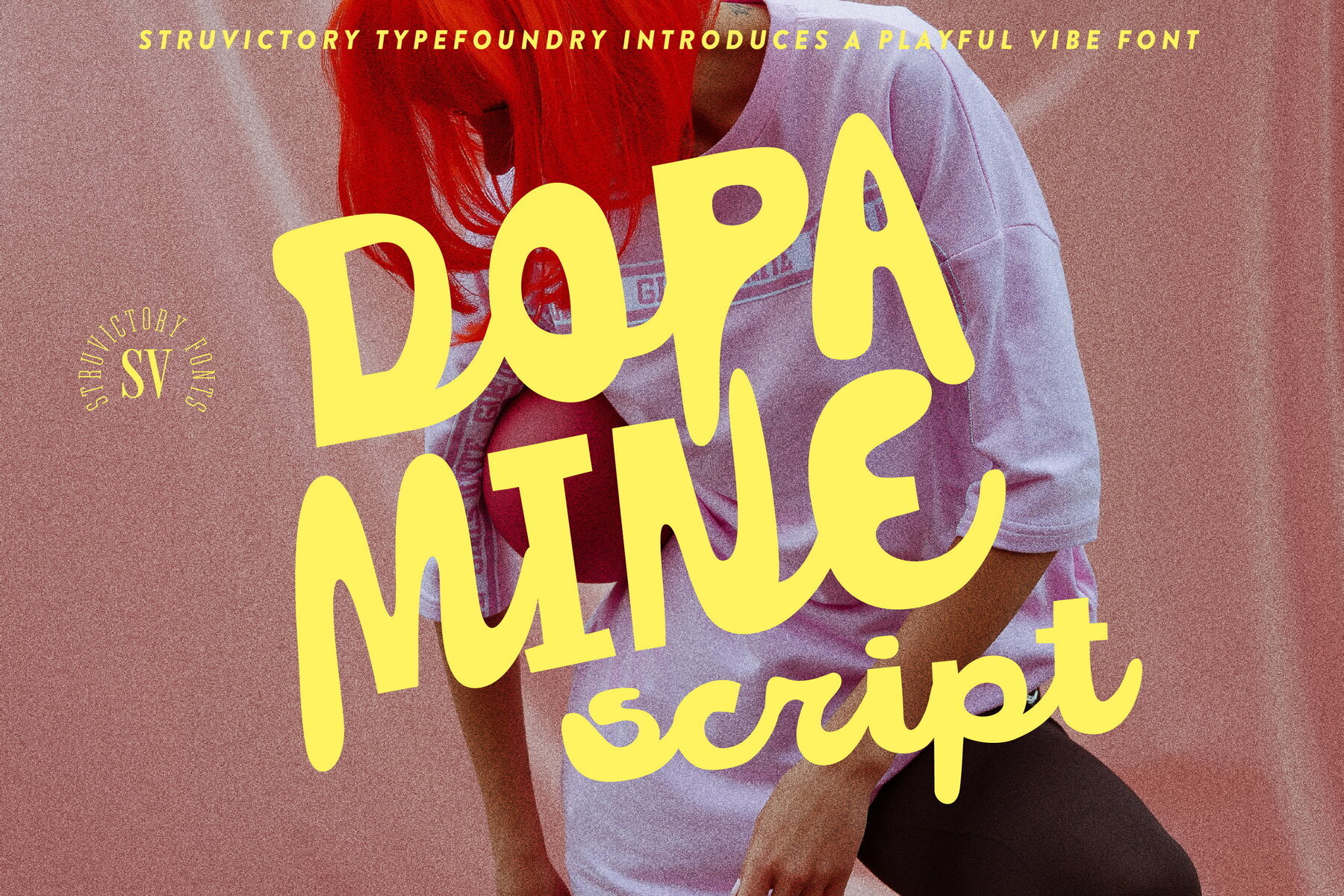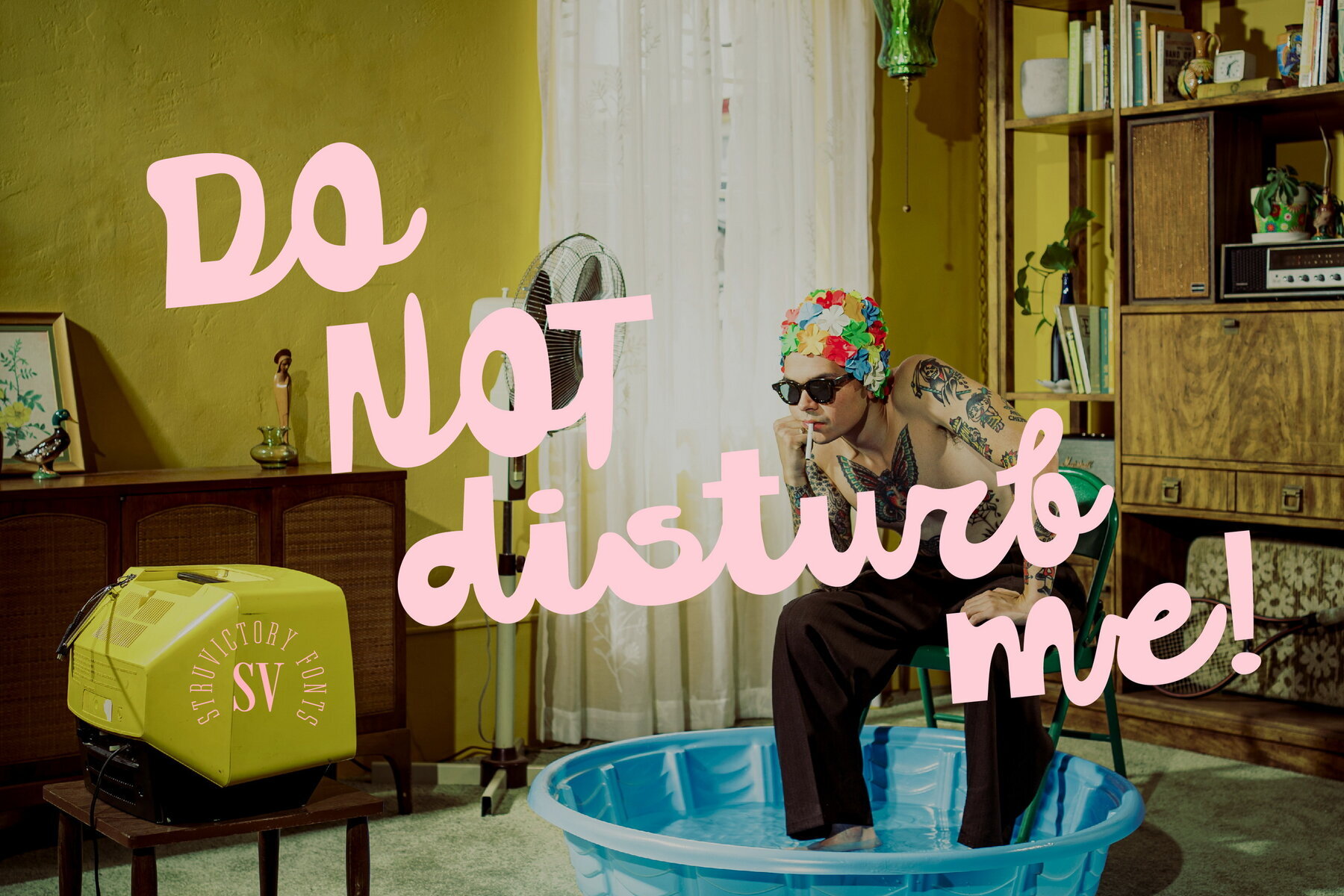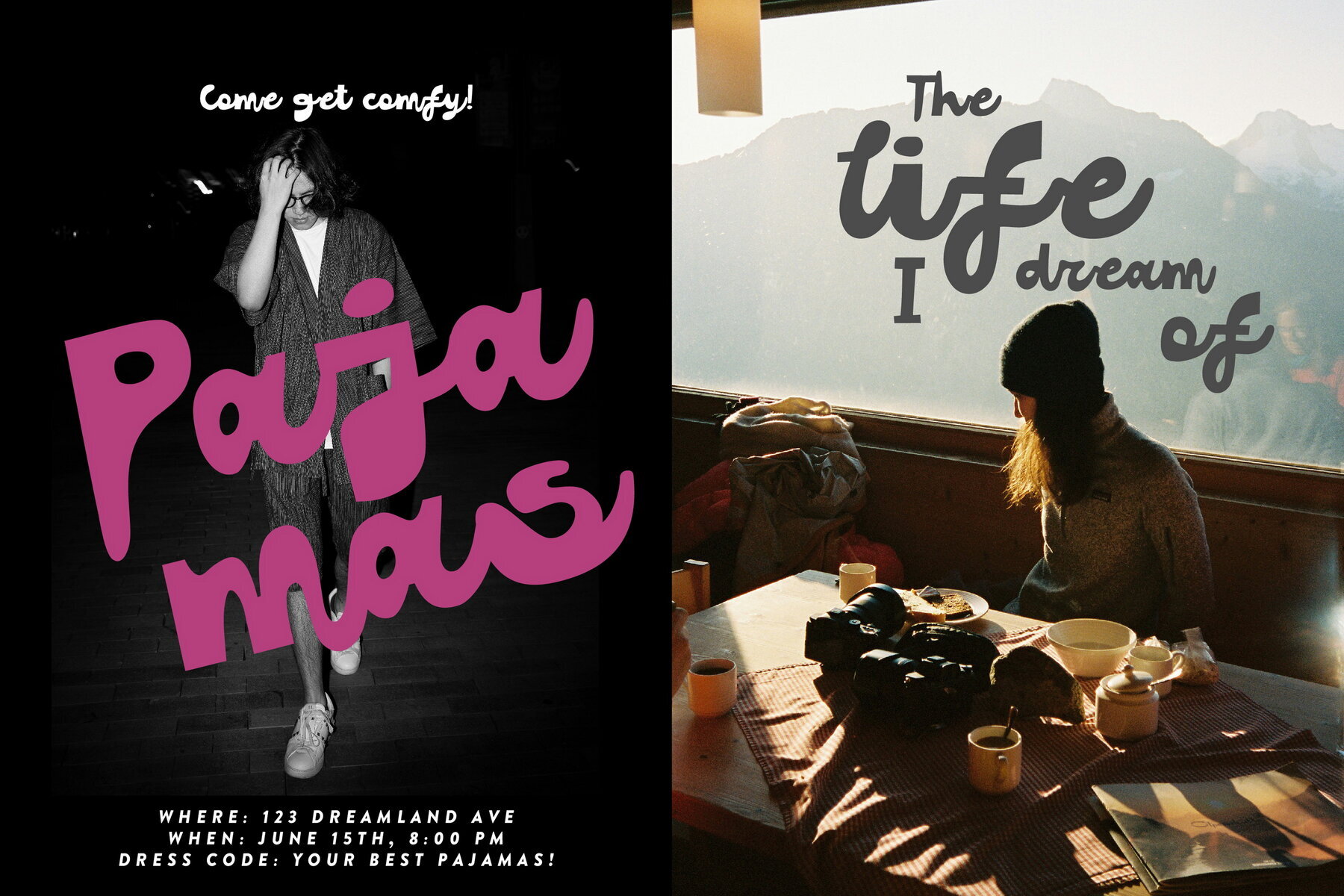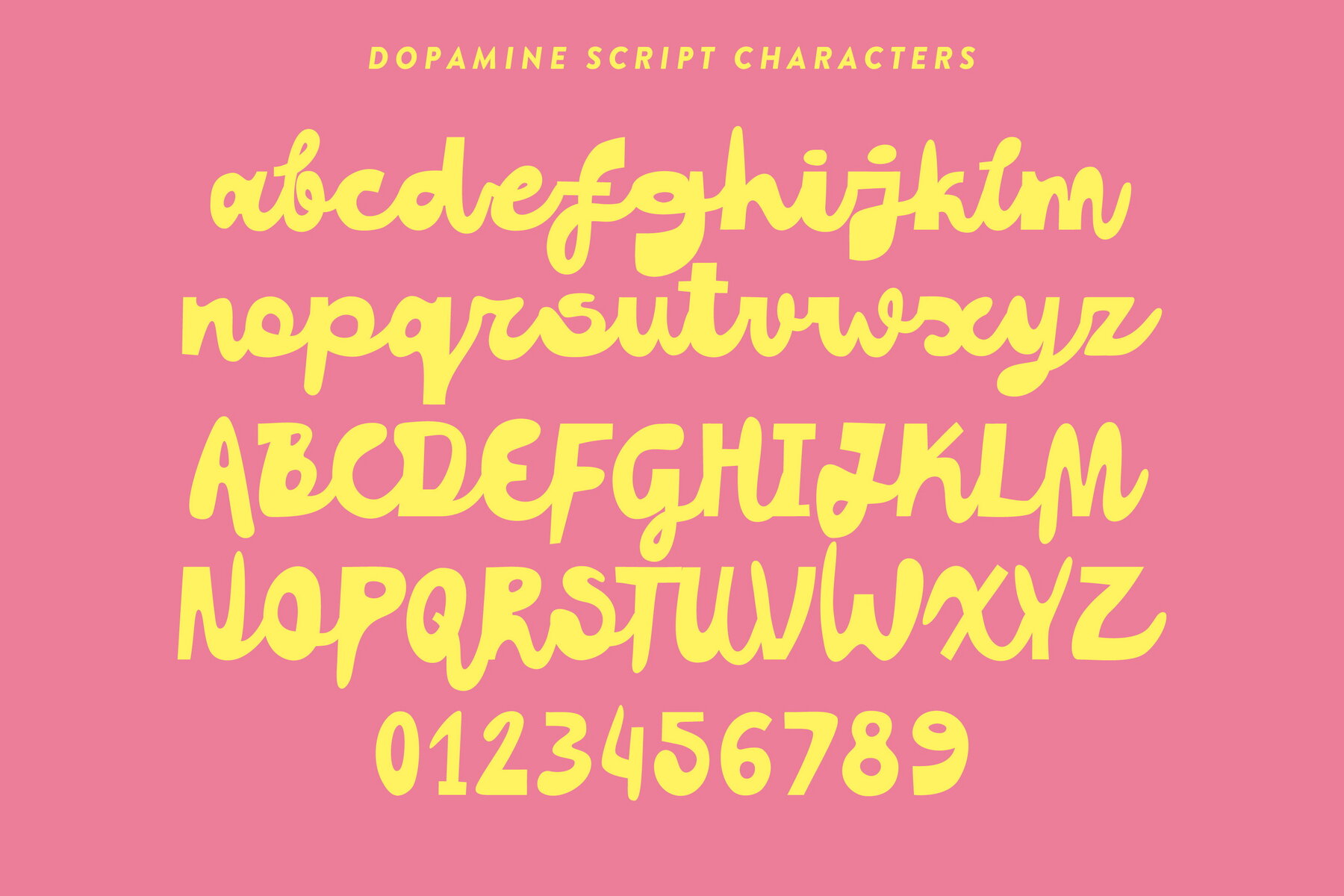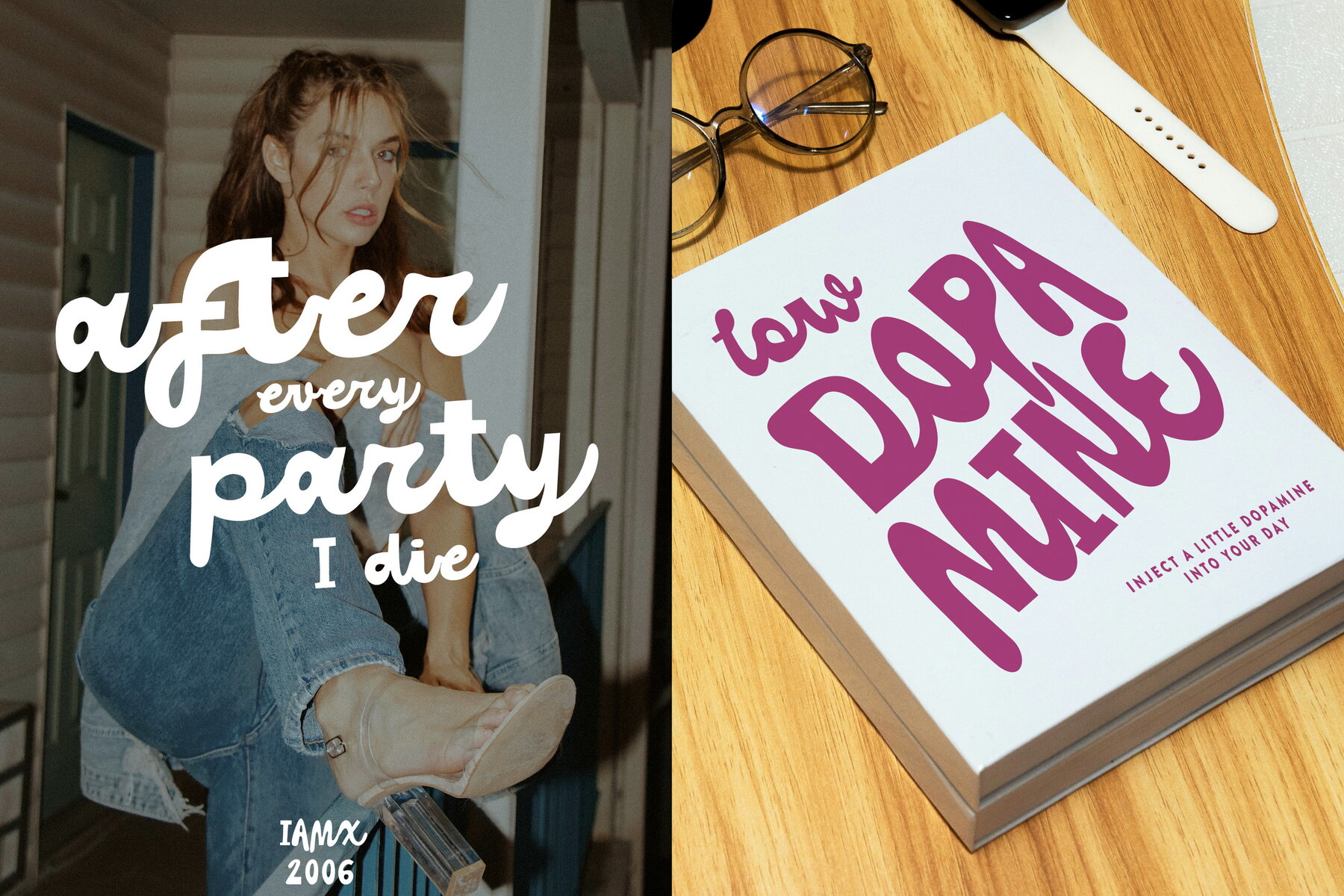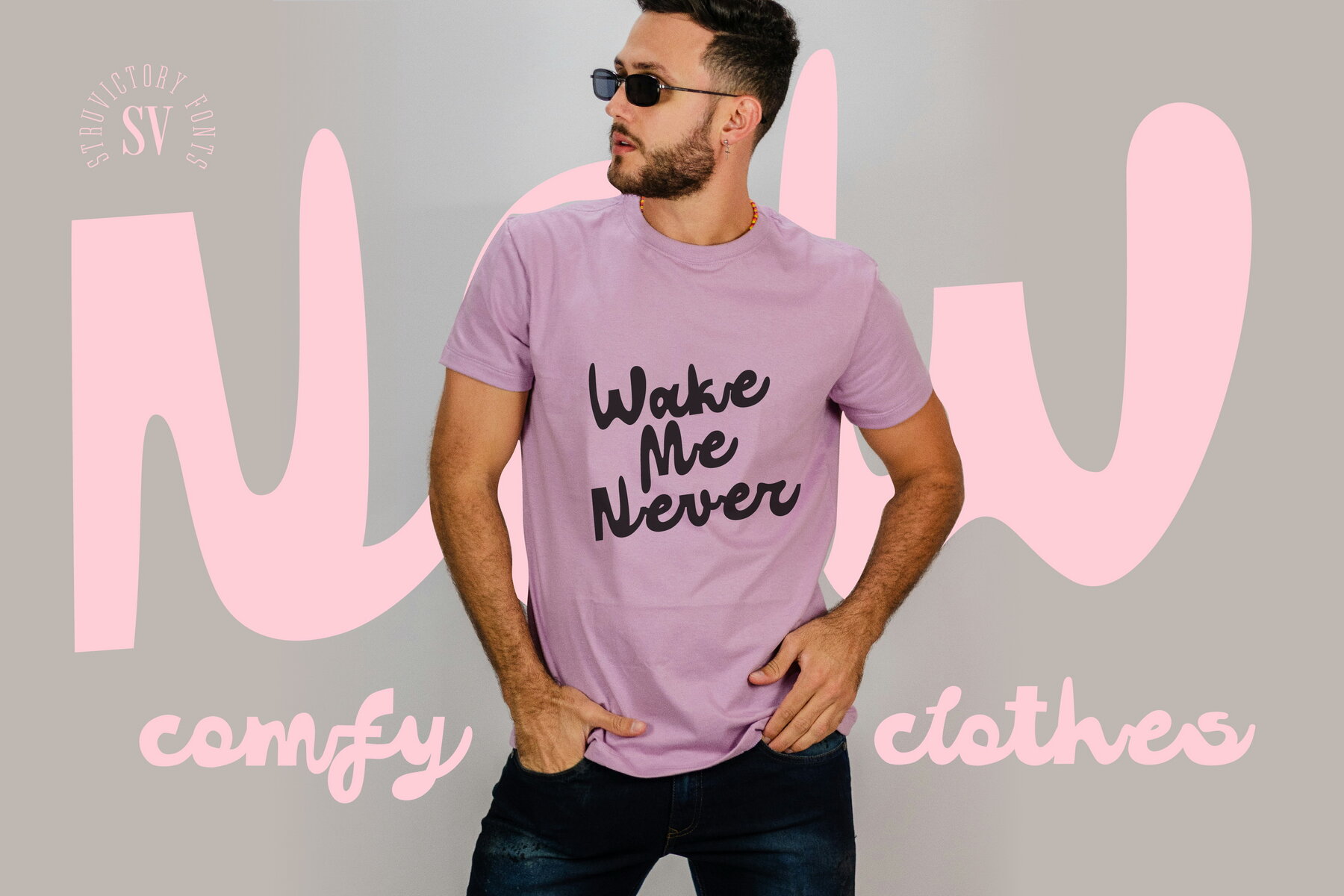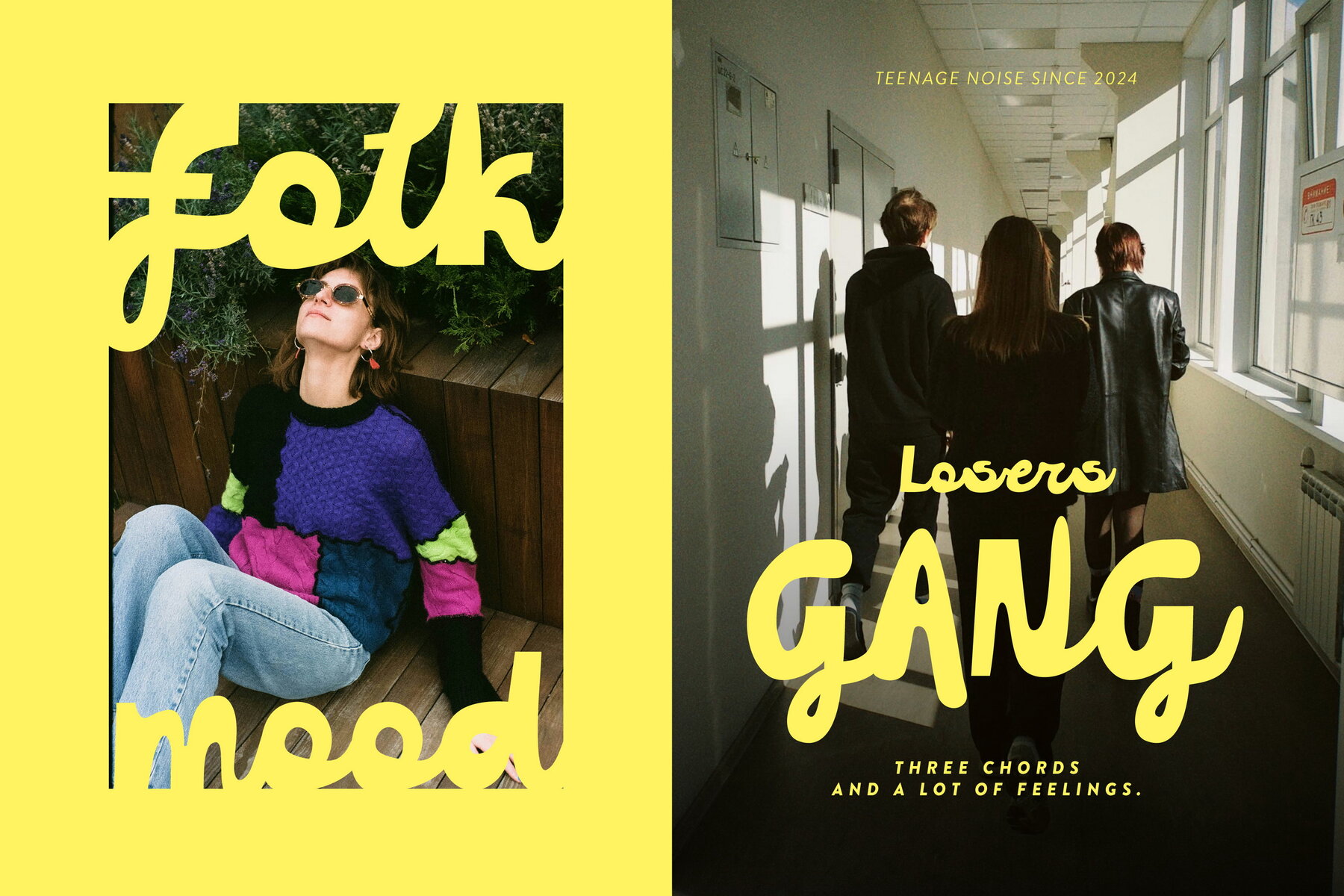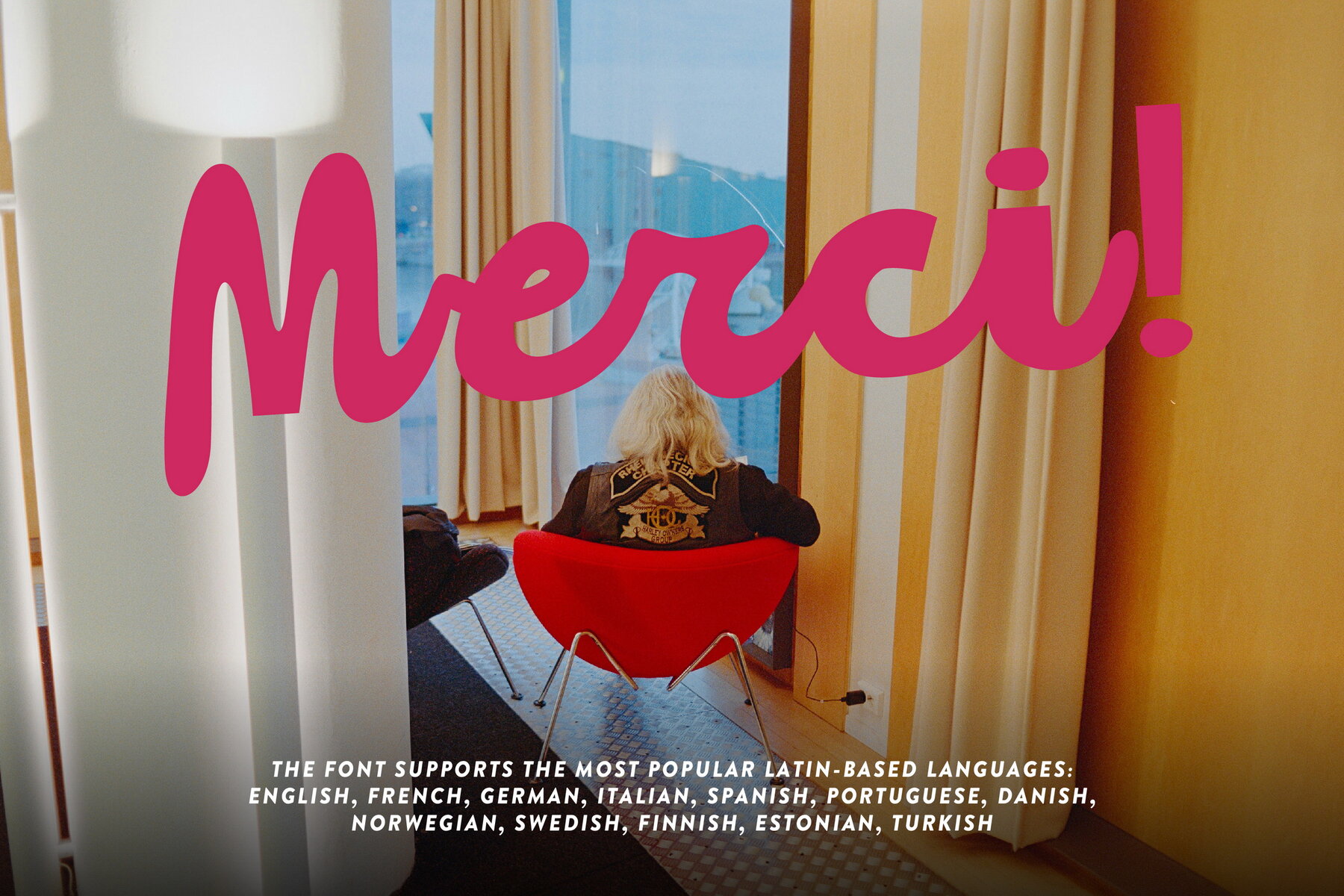
Dopamine Script Font
Dopamine Script
Dopamine Script is a hand-drawn typeface exuding a relaxed yet confident aura, designed to infuse natural rhythm and character into various design projects. Its loose strokes and organic imperfections meld seamlessly with a casual structure, making it a versatile choice for branding, apparel, packaging, and editorial design. Striking a balance between spontaneity and clarity, Dopamine Script lends an air of personal touch and effortless style to any creative endeavor.Dopamine Script: The Relaxed Typeface with Character